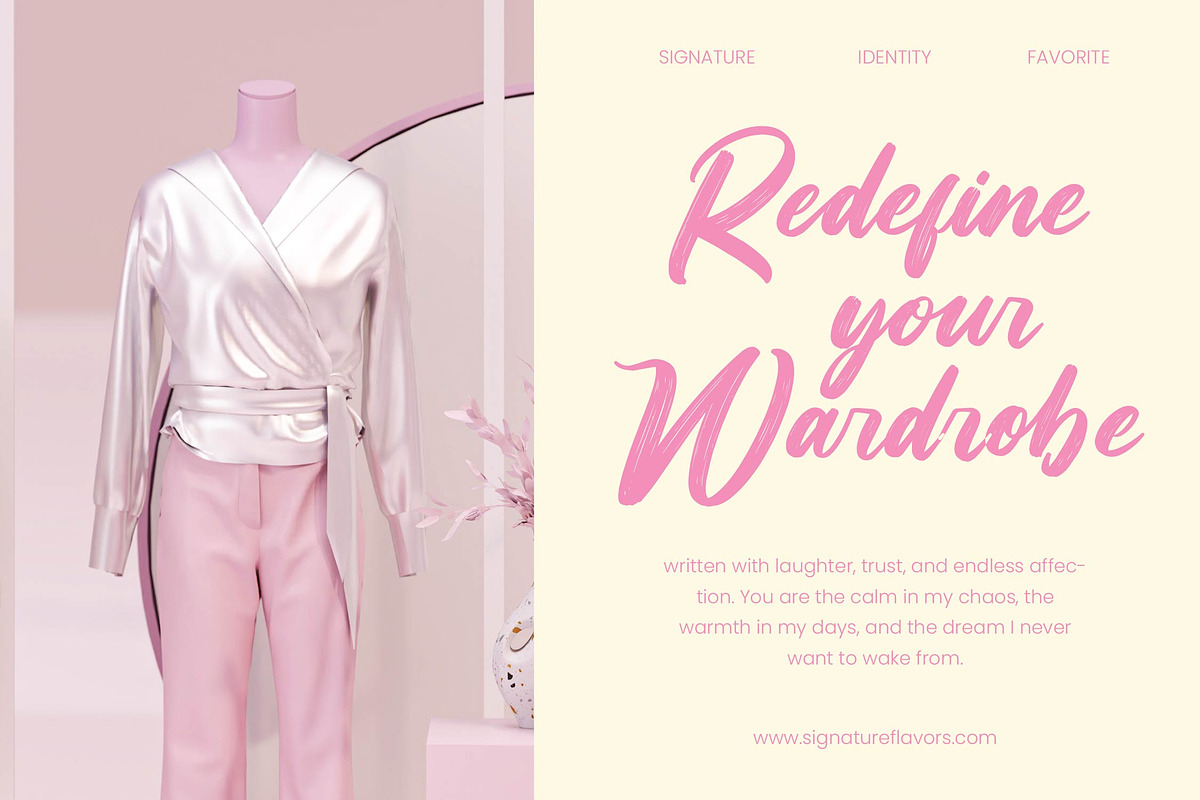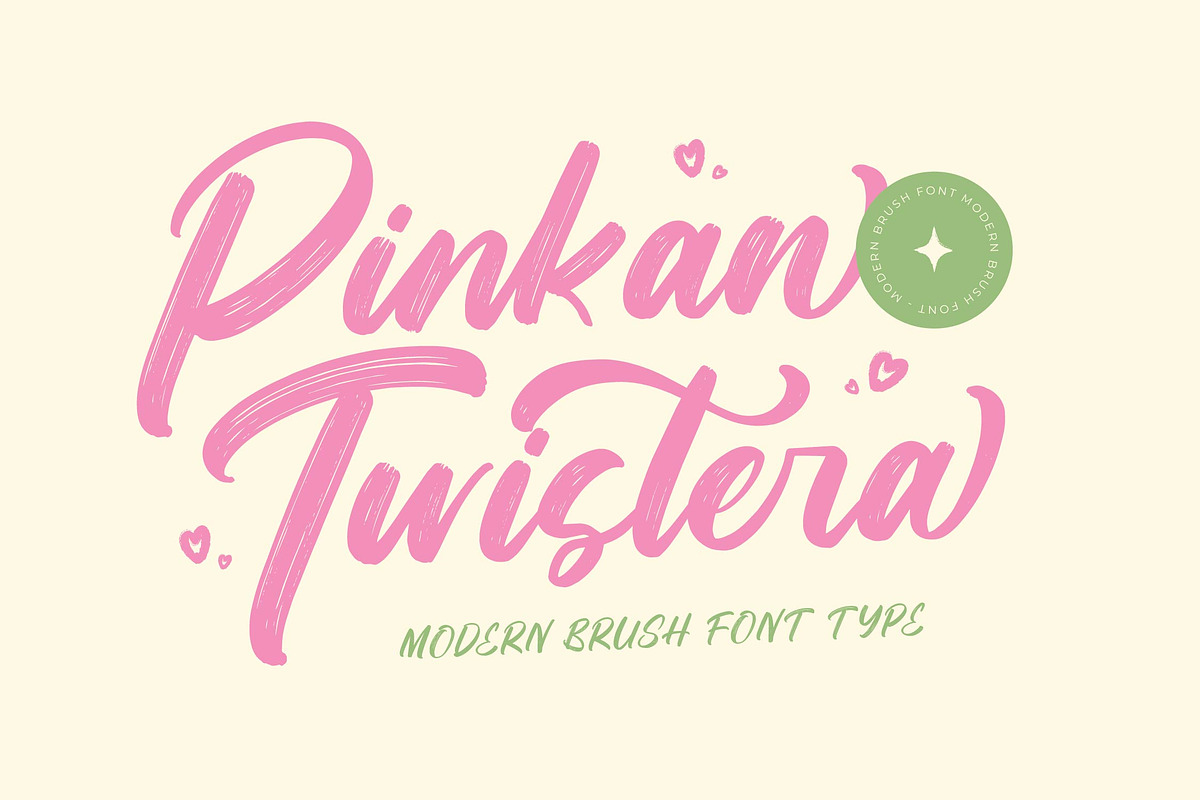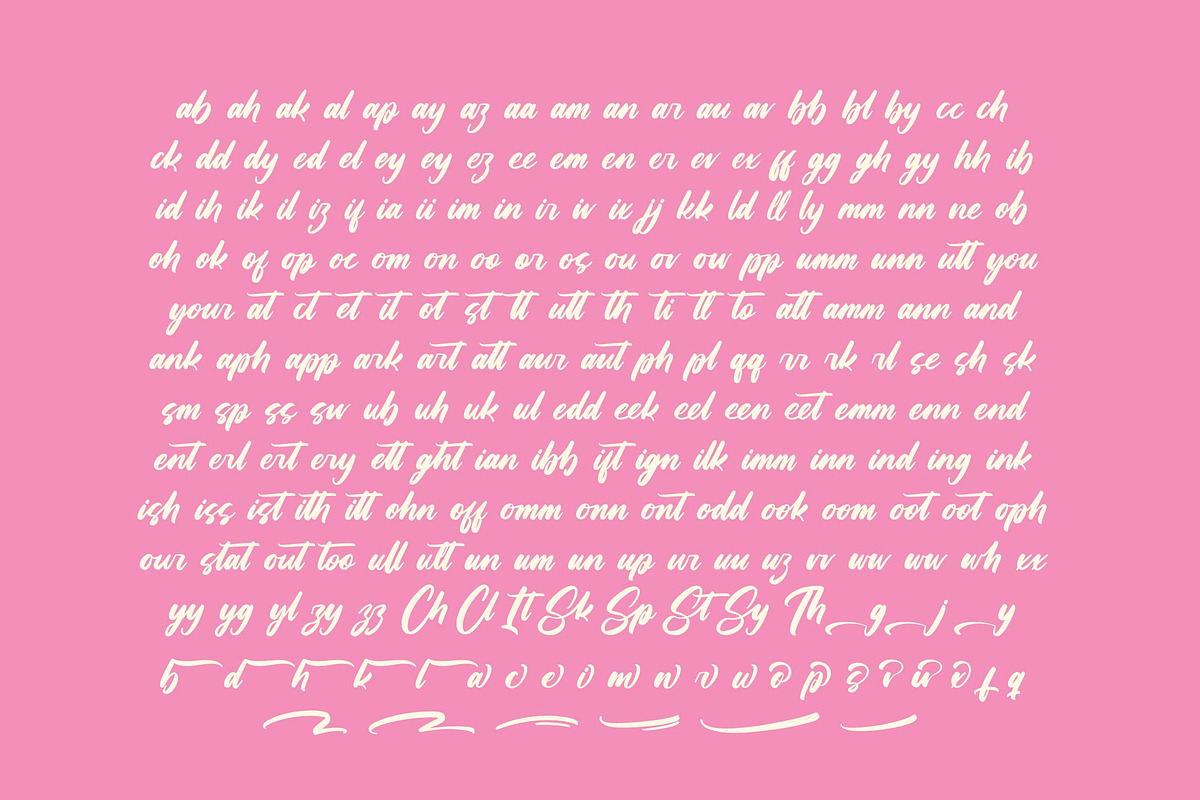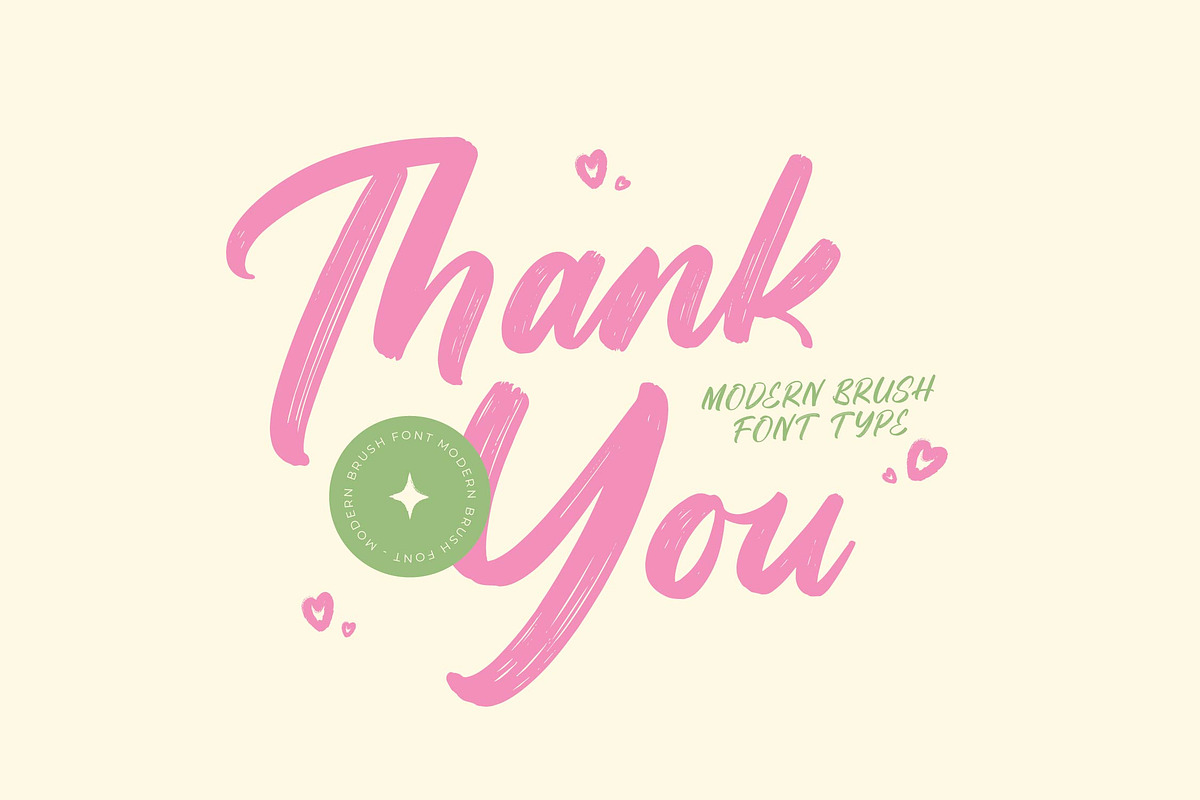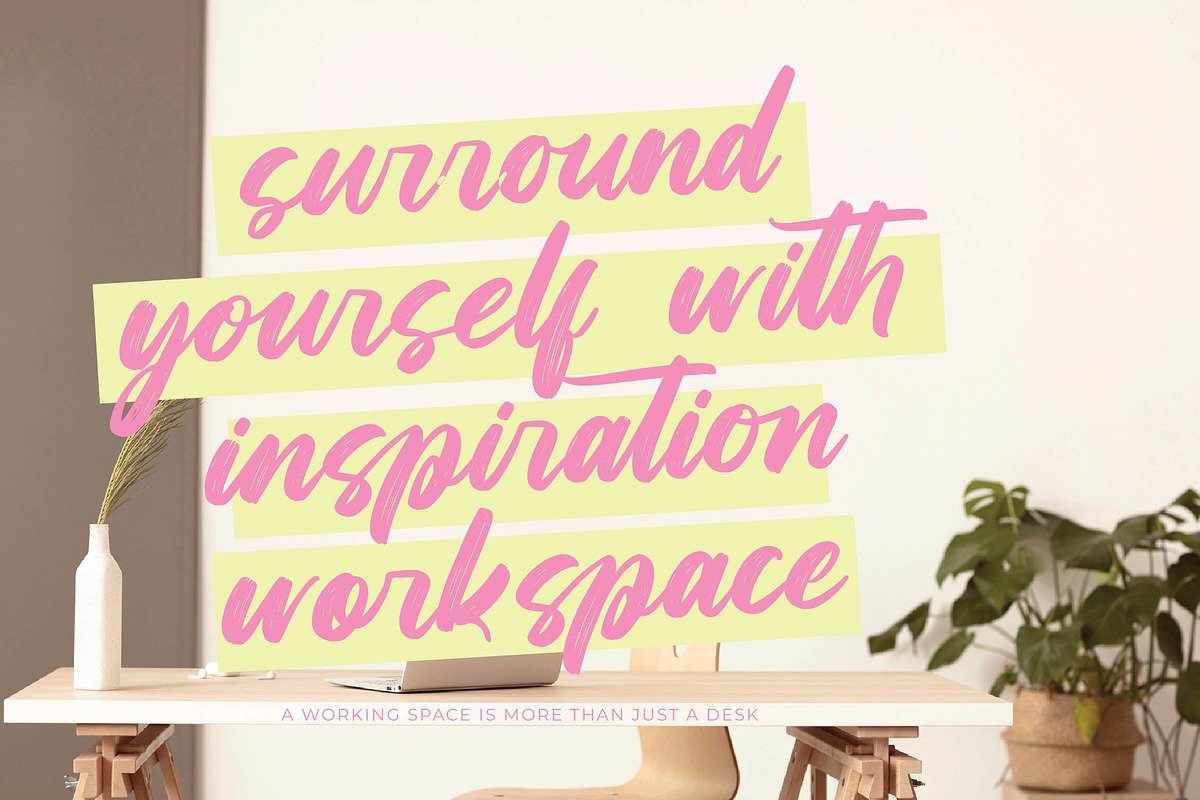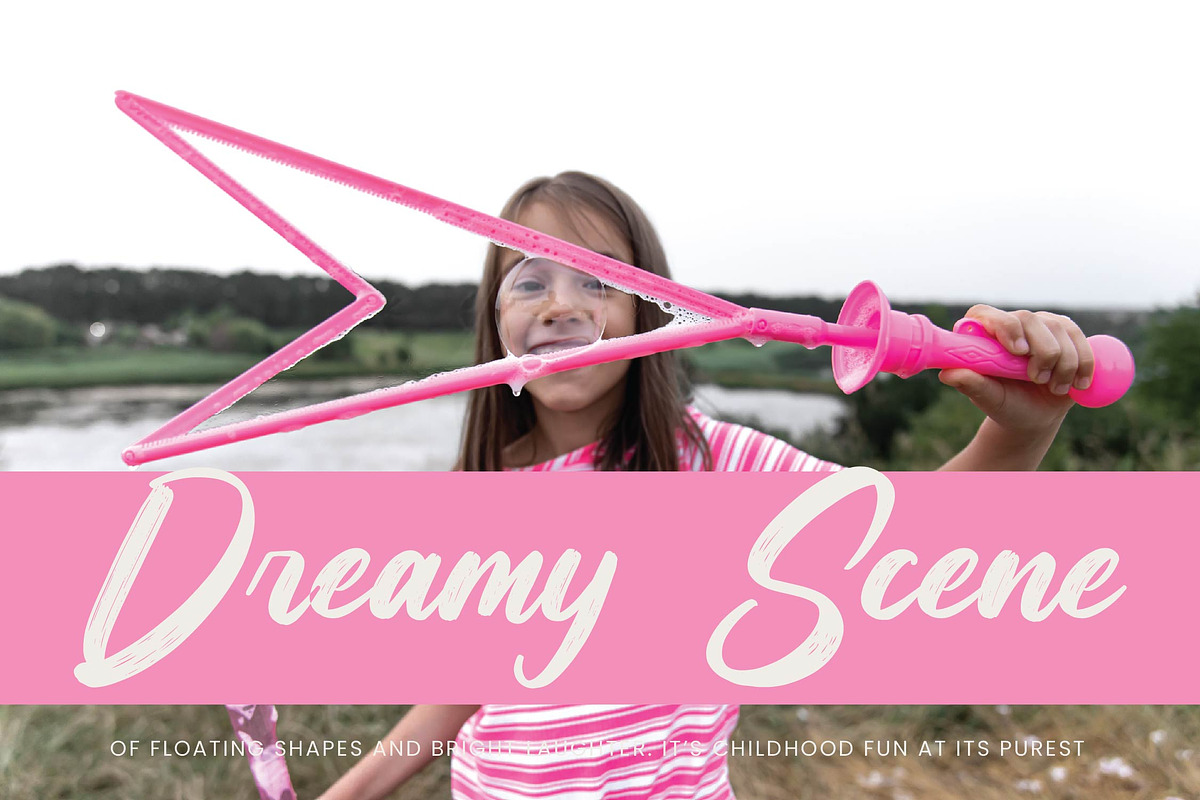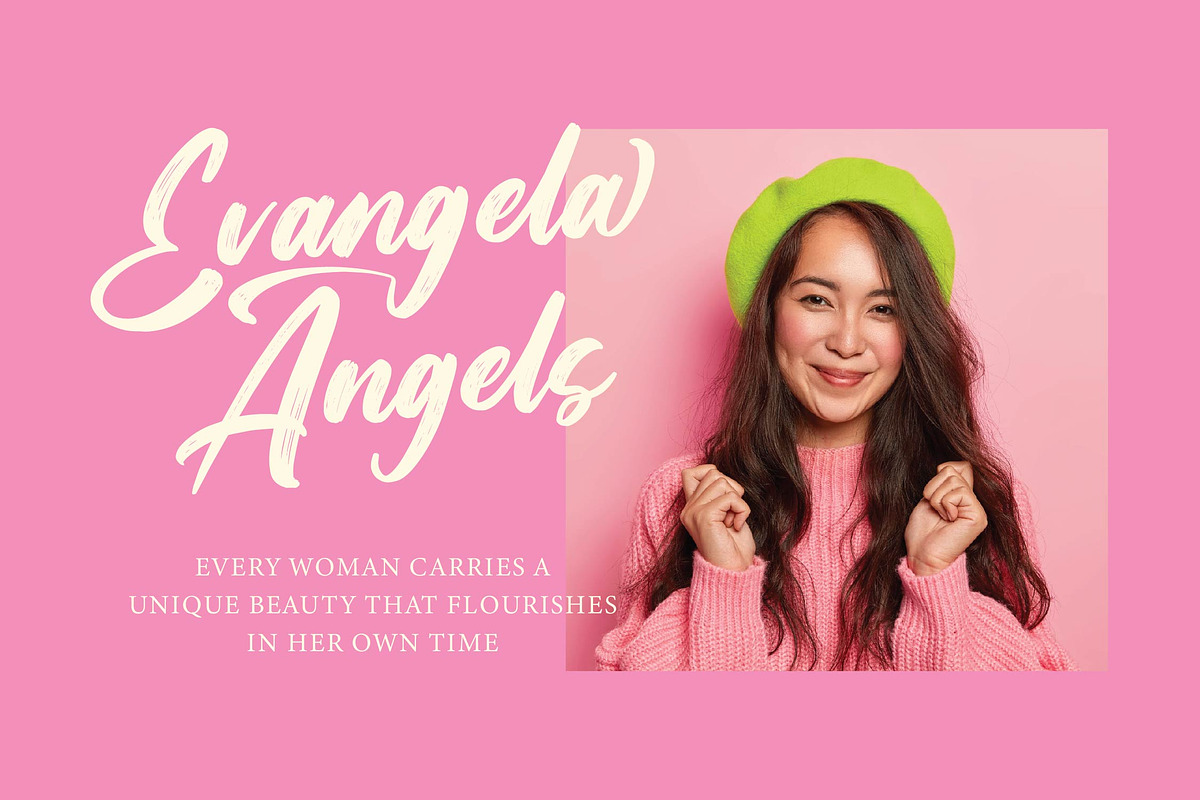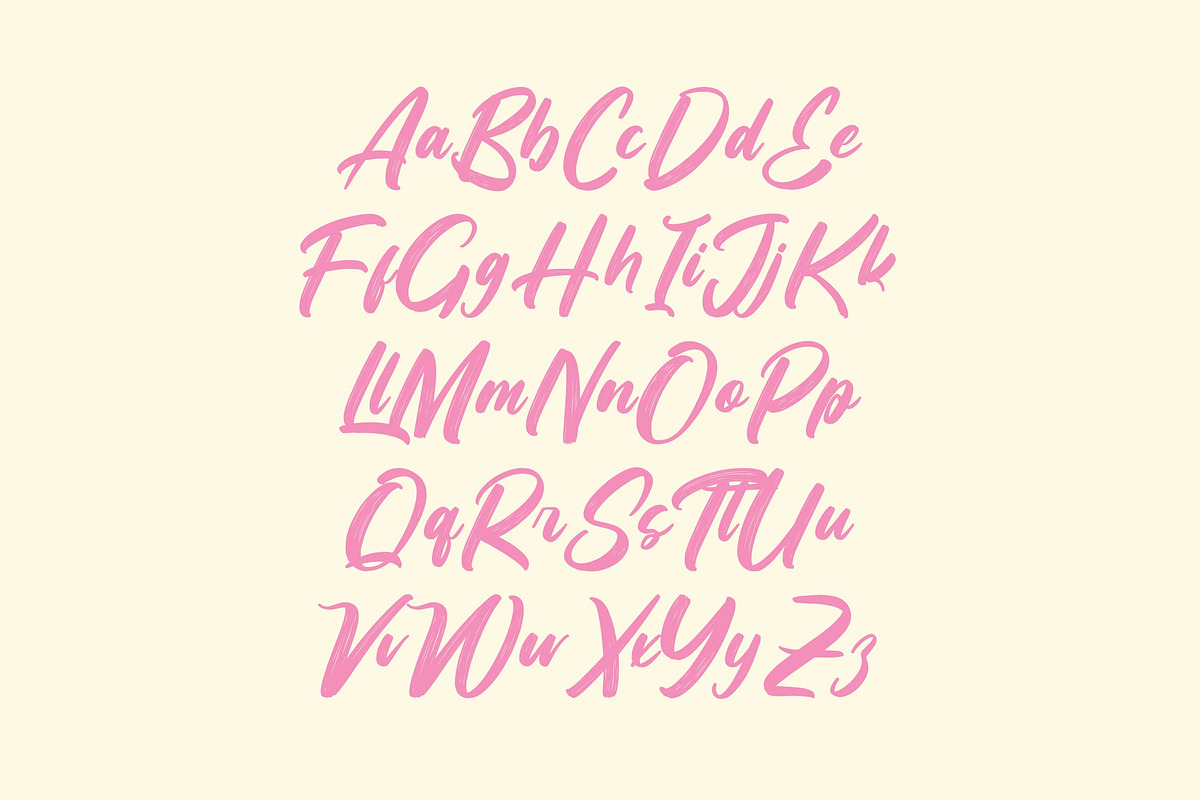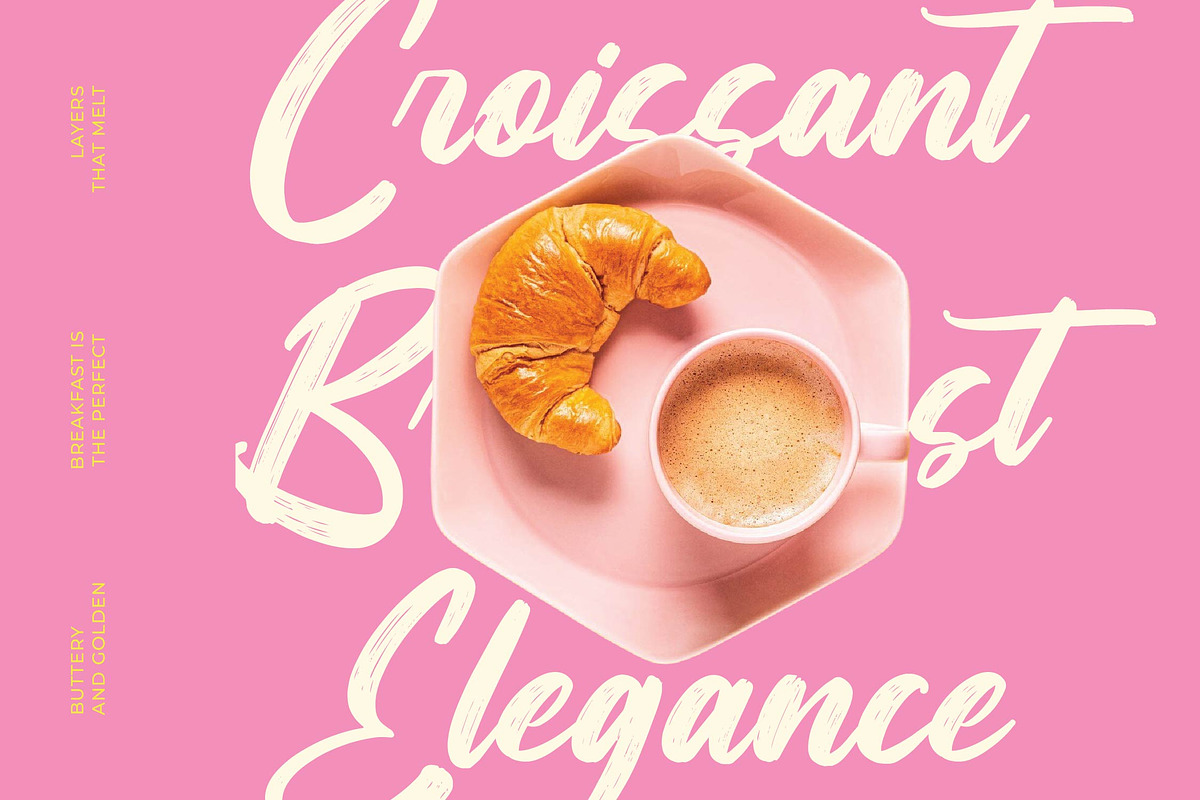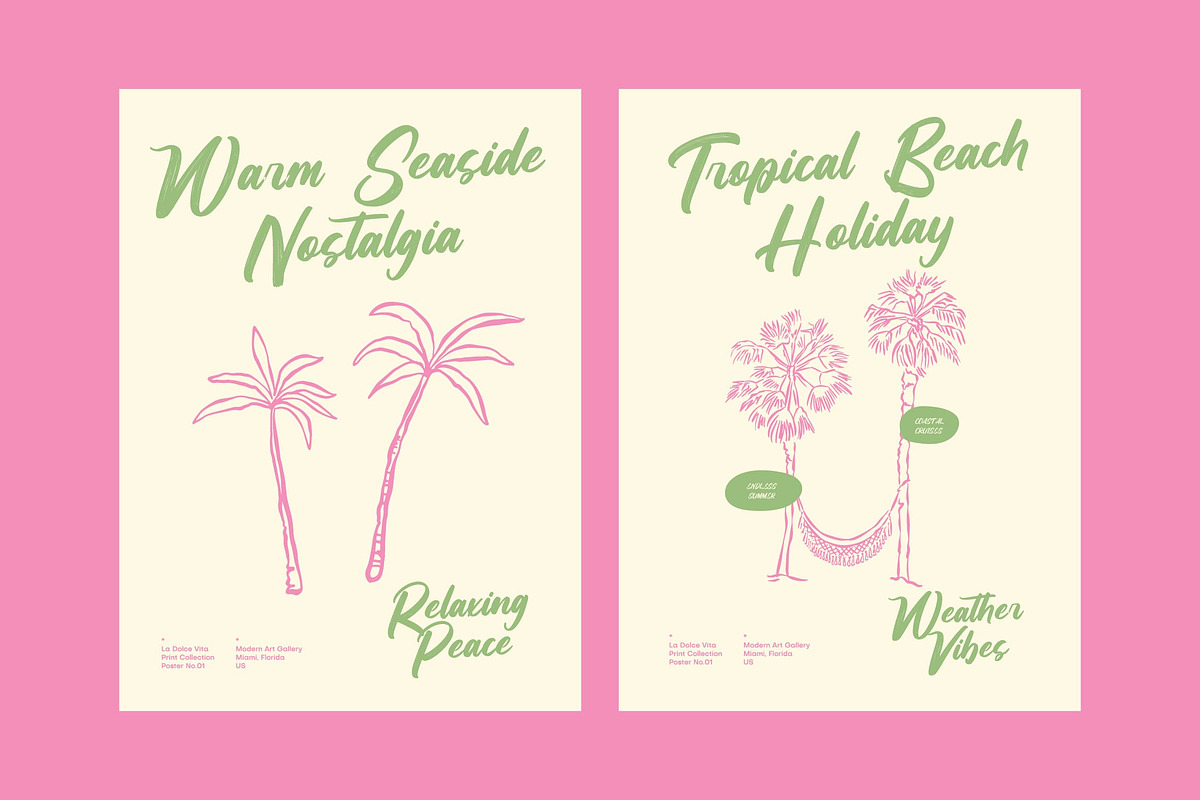
Pinkan Twistera – Modern Brush Scrip
Pinkan Twistera – Modern Brush Script Font , Pinkan Twistera is a playful modern brush script font designed with soft curves, handwritten energy, and a cheerful aesthetic. Its bold pink strokes and romantic swashes make it perfect for branding, invitations, quotes, social media posts, feminine packaging, and creative projects that need a bright handwritten vibe. This font brings a lively touch to every design — combining modern brush lettering with heart-accented details for a sweet, expressive finish. Ideal for designers seeking a fresh, joyful script with stylish alternates and natural brush texture.